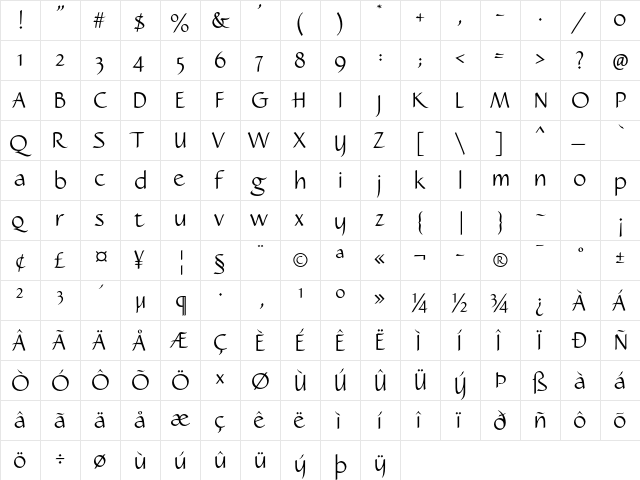
Caterina LT Std Light
| Foundry | Linotype GmbH |
| Designer | Paul Veres |
Design Context for Caterina LT Std Typeface
Caterina LT Std is a composed and adaptable typeface that performs quietly and consistently across a wide range of design contexts. Its slender proportions lend an understated elegance to any composition.